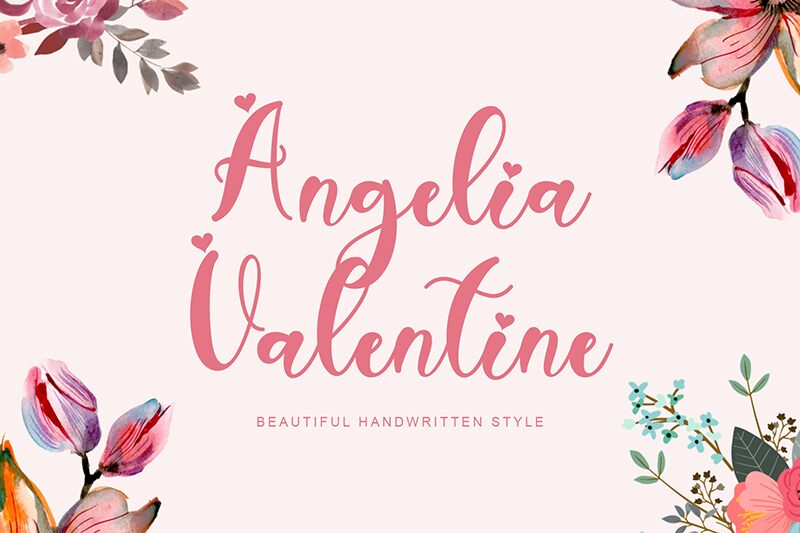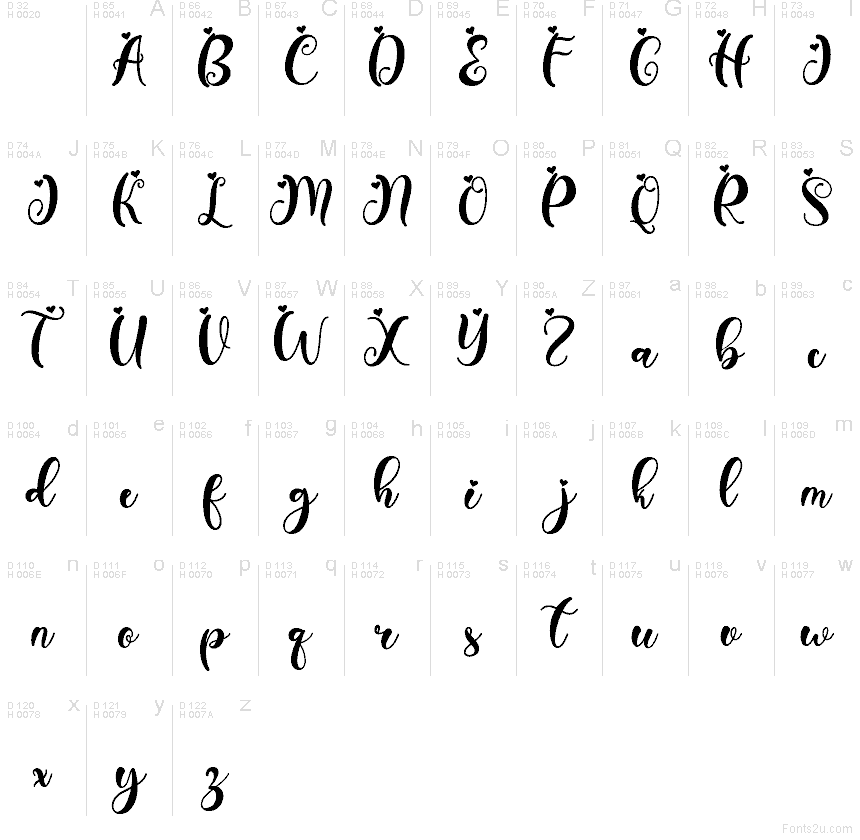
Angelia Valentine
Angelia Valentine font by Yoga Letter is a free Valentine script typeface that turns every word into a handwritten love note. Its flowing, slightly bouncy strokes and heart-touched details feel like ink brushed across a card, giving designs a warm, personal charm instead of a stiff, generic look. The letters connect smoothly, creating soft ribbons of text that feel both romantic and easy to read at larger sizes.
Using Angelia Valentine, this free font shines on greeting cards, love letters, wedding invitations, seasonal branding, product packaging, and social media posts. The playful rhythm and cozy curves make short phrases and names feel extra special, especially when set large and given plenty of white space. For a polished look, pair this script with a simple sans serif for supporting text so Angelia Valentine can steal the spotlight.